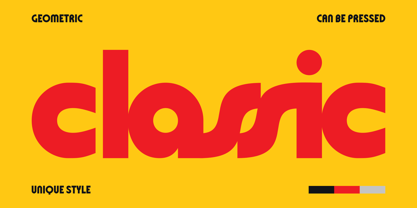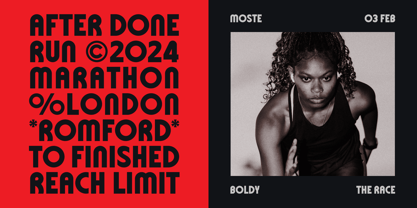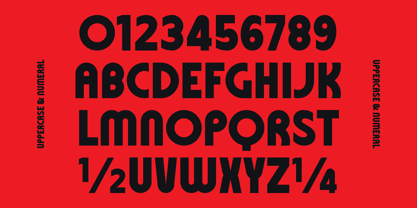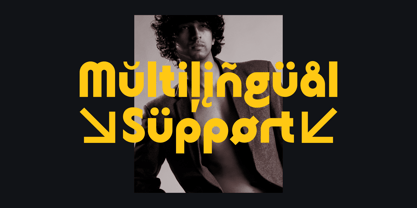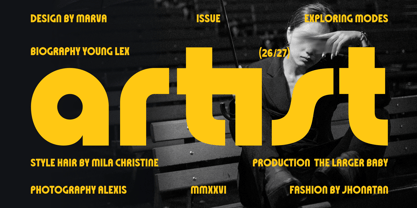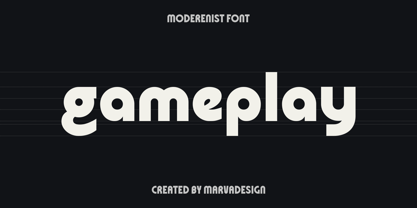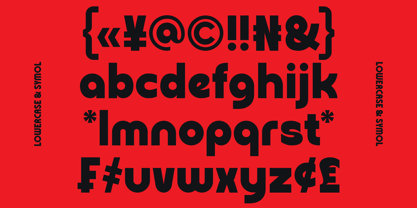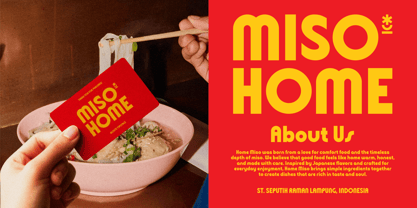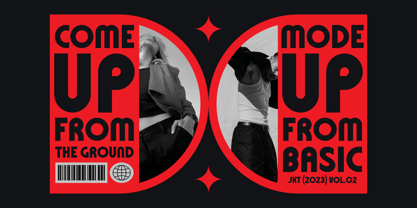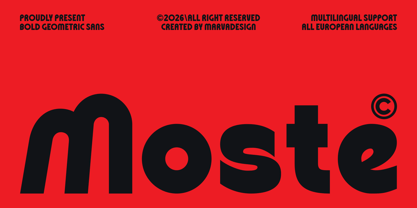
Moste
by Marvadesign
The Moste Font Family was designed by Febrie Setiawan and published by Marvadesign. Moste contains 1 styles. More about this family
Moste is a bold geometric sans-serif font that blends modernist structure with a distinctive contemporary attitude. Characterized by thick, confident strokes and softly rounded terminals, Moste delivers a strong visual presence without feeling rigid. Its letterforms are clean and highly legible, yet subtly playful seen in the unique curves, open counters, and slightly unconventional proportions that give the typeface a recognizable personality. This balance makes Moste feel both modern and expressive.